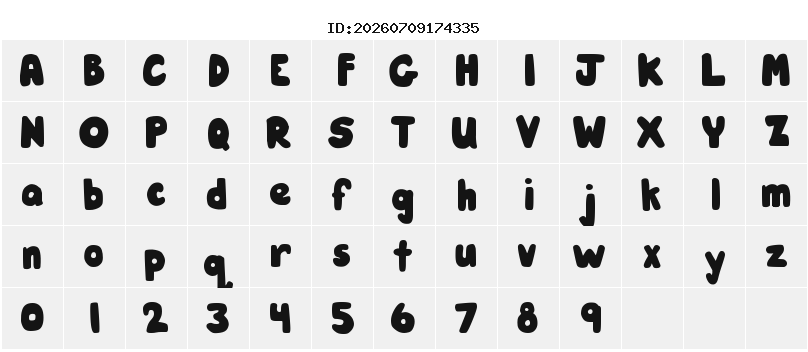
DJB Hunky Chunk Preview
• Font Name: DJB Hunky Chunk
• Font Style: Gras
• Font ID: DJB Hunky Chunk Bold:Version 1.00
• Full Font Name: DJB Hunky Chunk Bold
• Version: Version 1.00 March 26, 2015, initial release
• PostScript Name: DJBHunkyChunk-Bold
• Designer: Darcy Baldwin (djbfontography)
About DJB Hunky Chunk.ttf
DJB Hunky Chunk.ttf is a modern, elegant sans-serif font designed for ultimate readability and visual harmony. Perfect for branding, headlines, web design, and print materials.